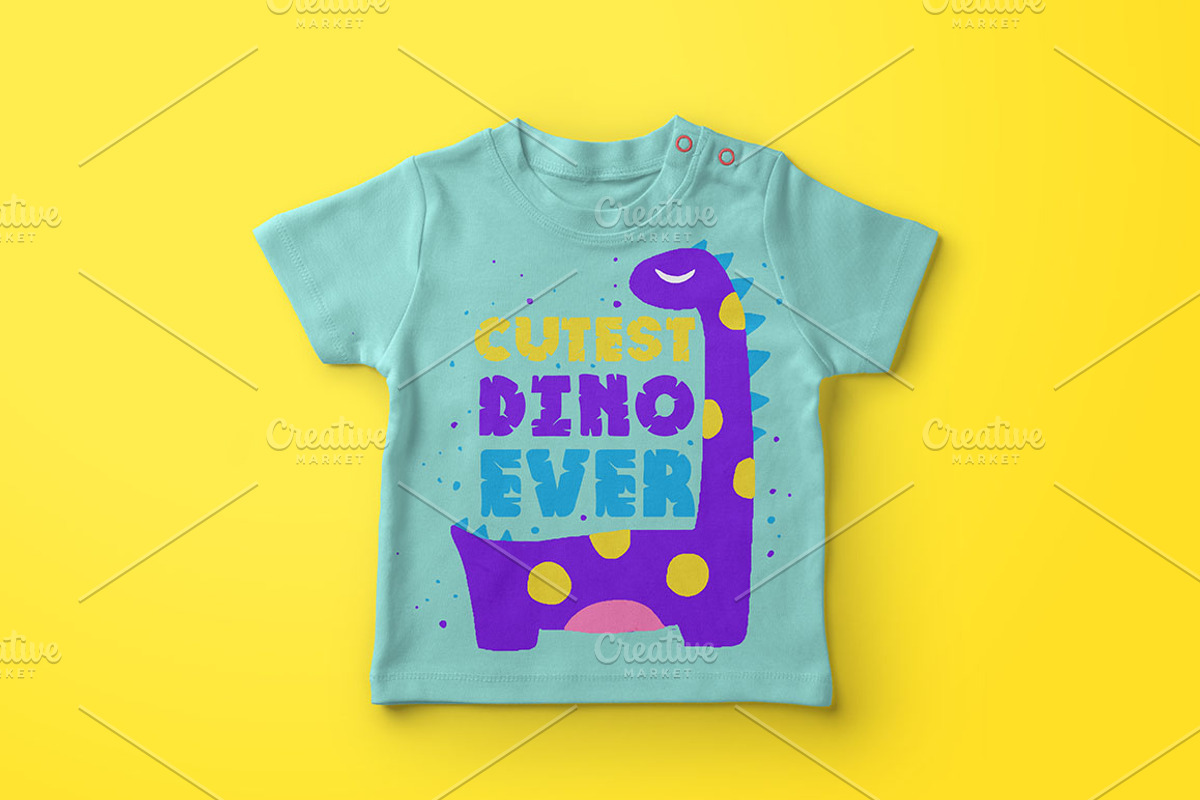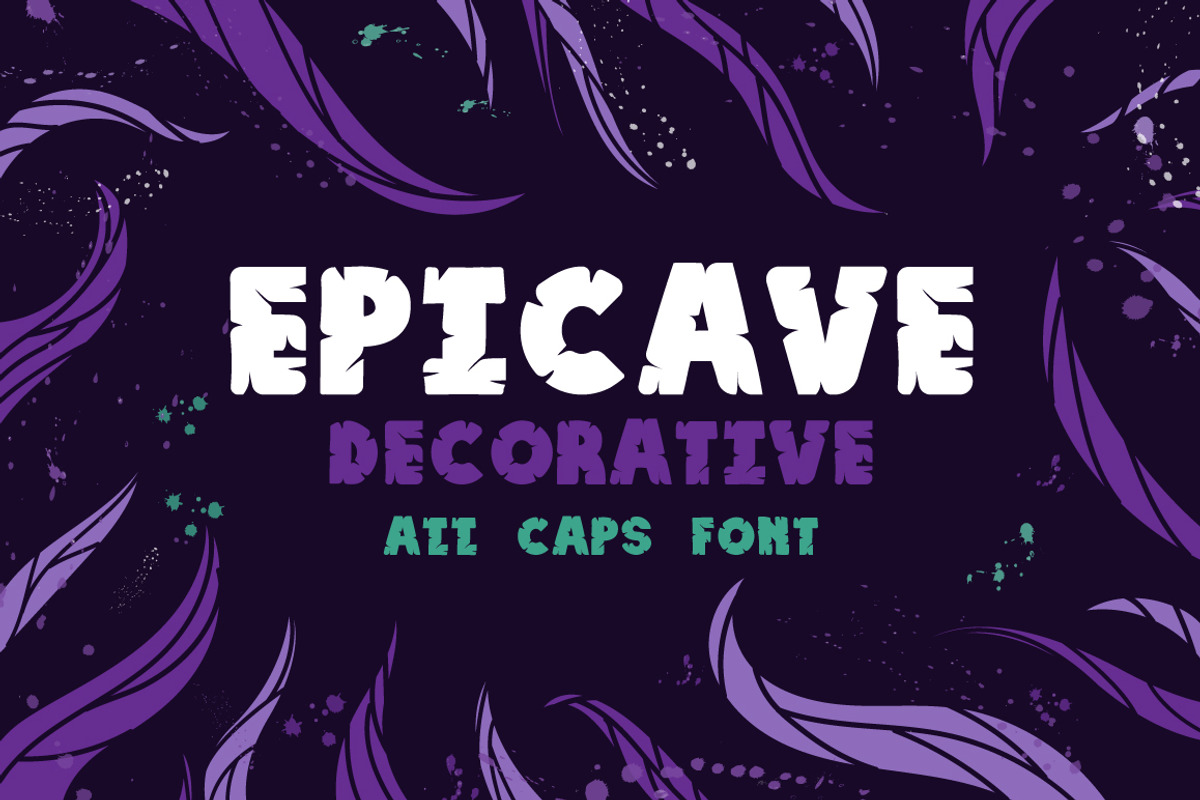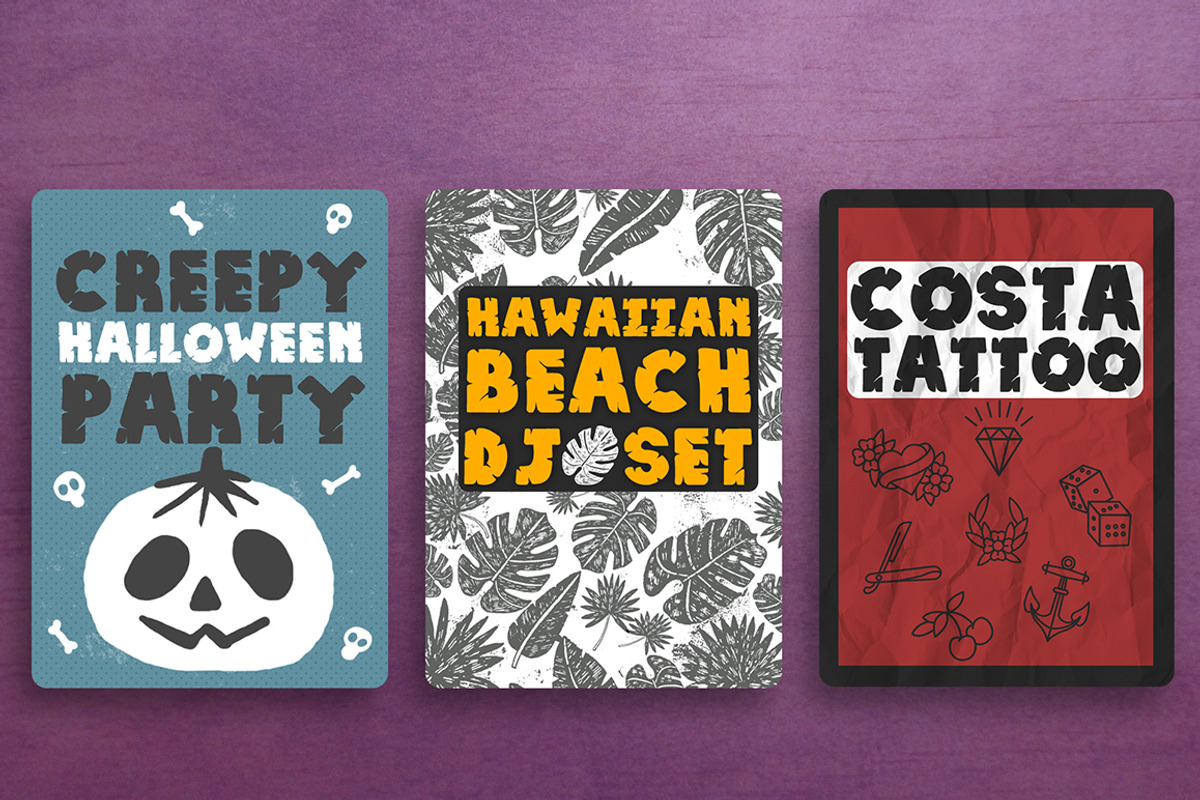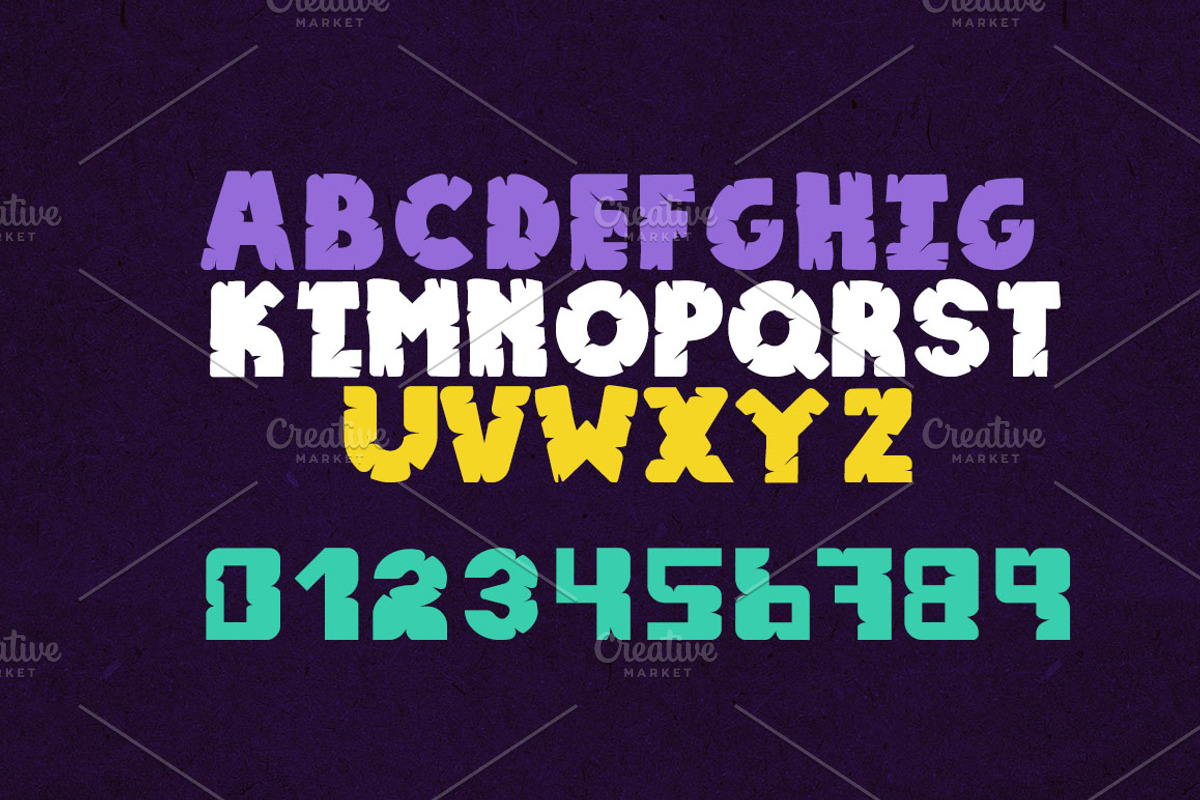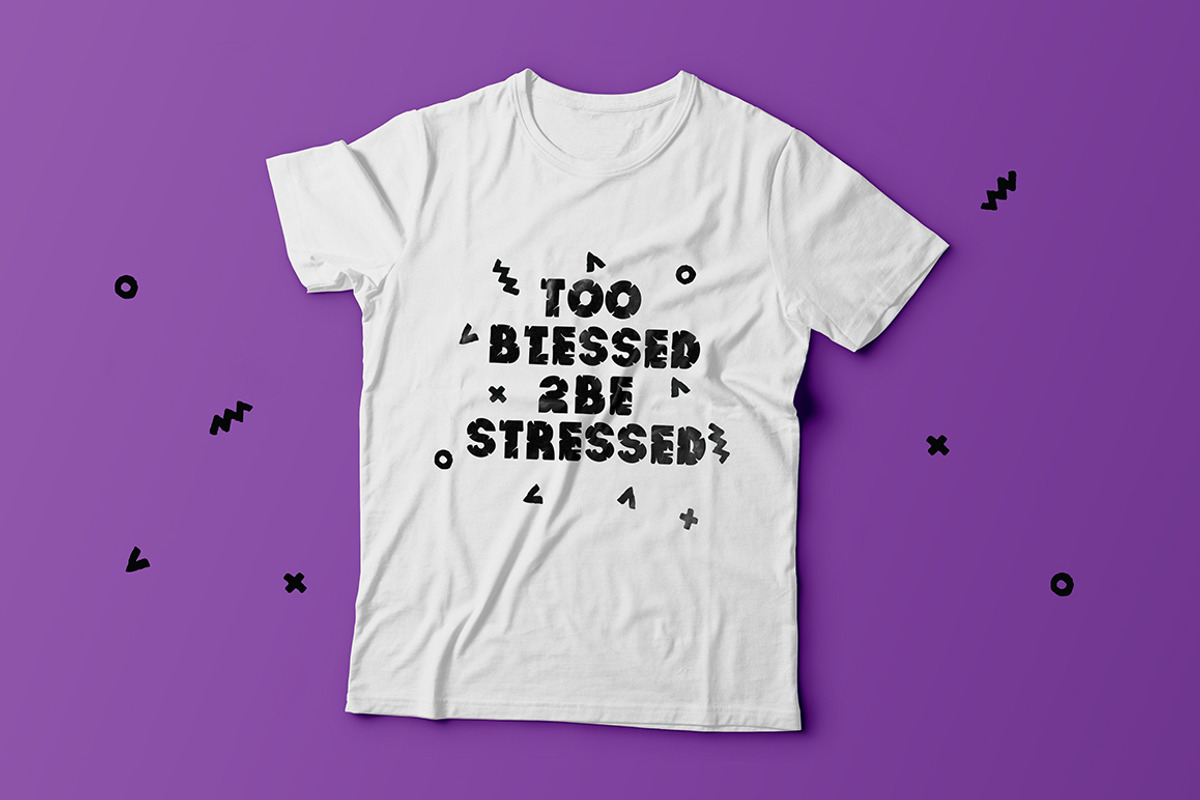
Epicave All Caps Display Font
I've been loving to draw this type of cracked lettering for years for my personal projects. And one day I've decided why not to create such a font? Finally, created with love, so, enjoy!